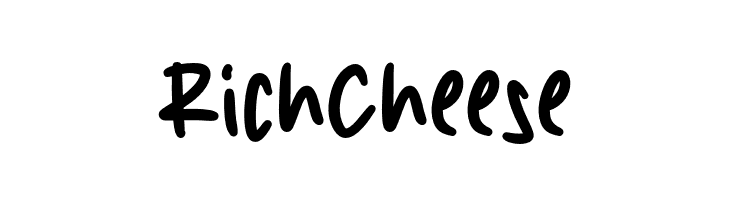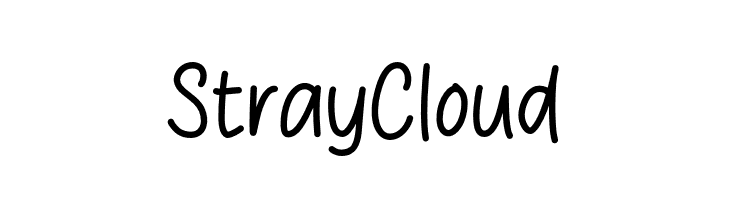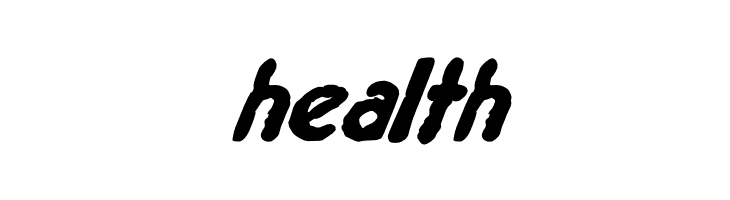
A flowing, cursive script font with elegant, handwritten characteristics.
A modern, geometric sans-serif font with a clean and minimalist design.
A playful, casual handwritten font with smooth, flowing lines and uniform letter height.
A bold, handwritten font with a playful and casual style.
An elegant, flowing script font with graceful cursive letterforms.
A modern, elegant script font with a handwritten style.
A graceful, flowing script font with elegant, connected characters.
A tall, slender font with a modern and minimalist style.
A flowing, cursive font with elegant loops and a handwritten style.
An elegant, flowing script font with graceful, cursive letterforms.
A bold, flowing script font with elegant curves and smooth connections.
A charming and elegant script font with flowing, cursive letterforms.
A charming, flowing script font with smooth, continuous strokes and elegant curves.
A playful, hand-drawn font with rounded edges and a whimsical style.
A graceful script font with flowing, connected strokes and elegant loops.
A playful, hand-drawn font with tall, narrow characters and a whimsical style.
A playful, striped decorative font with a marquee-like style.
A bold, playful font with chunky, dynamic letters and a lively style.
A playful and flowing script font with a natural handwritten style.
A playful dotted font with a modern and decorative style.
A modern calligraphy font with elegant, flowing cursive letters and dynamic stroke variations.
A playful, casual handwritten font with fluid, connected strokes.
A sophisticated, elegant cursive script with flowing, graceful lines.
A playful, casual handwritten font with fluid strokes and a whimsical style.
A delicate, handwritten cursive font with elegant, flowing strokes.
A bold, brush-style font with dynamic, irregular strokes.
A dynamic and elegant script font with flowing, cursive letterforms.